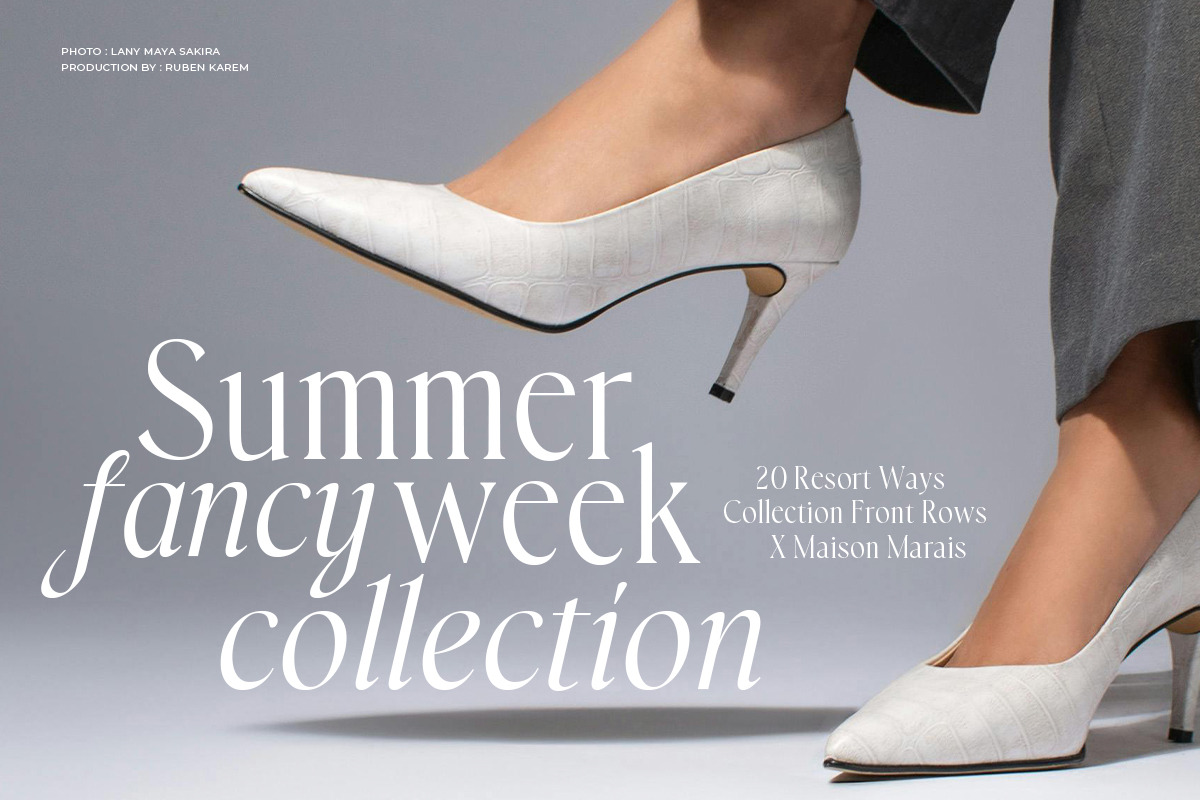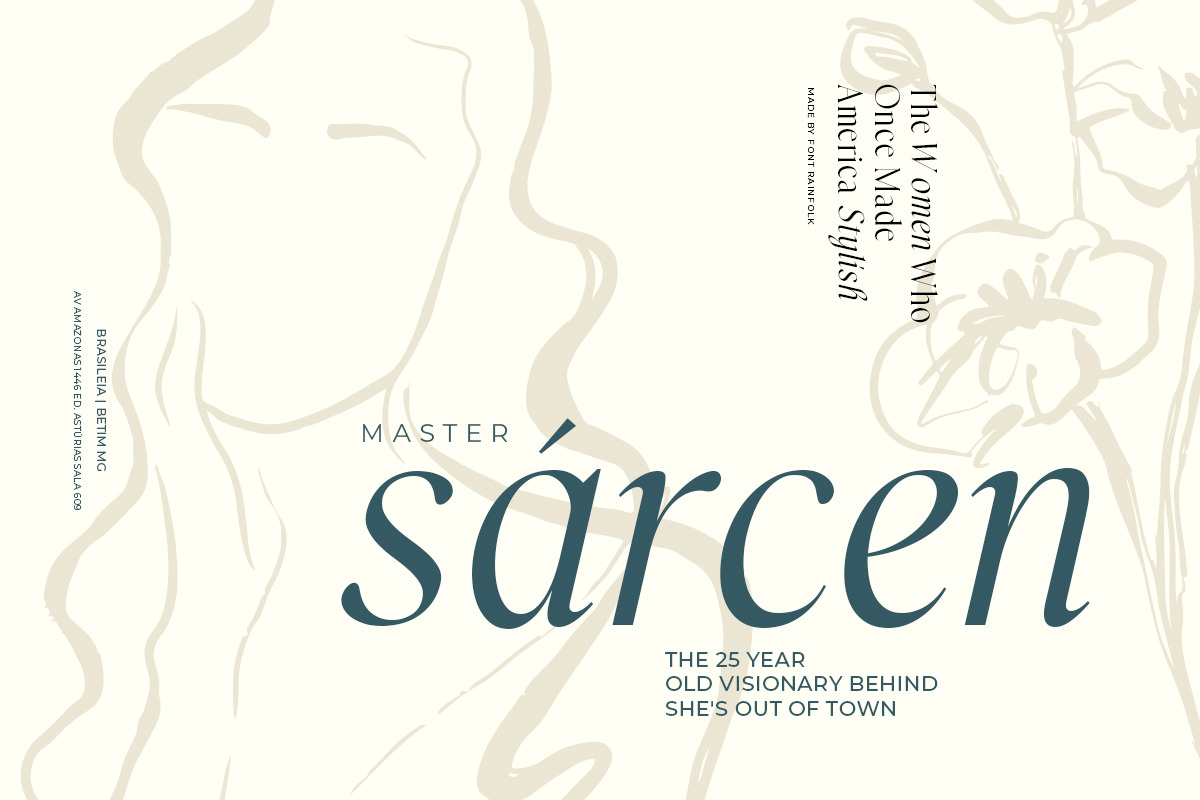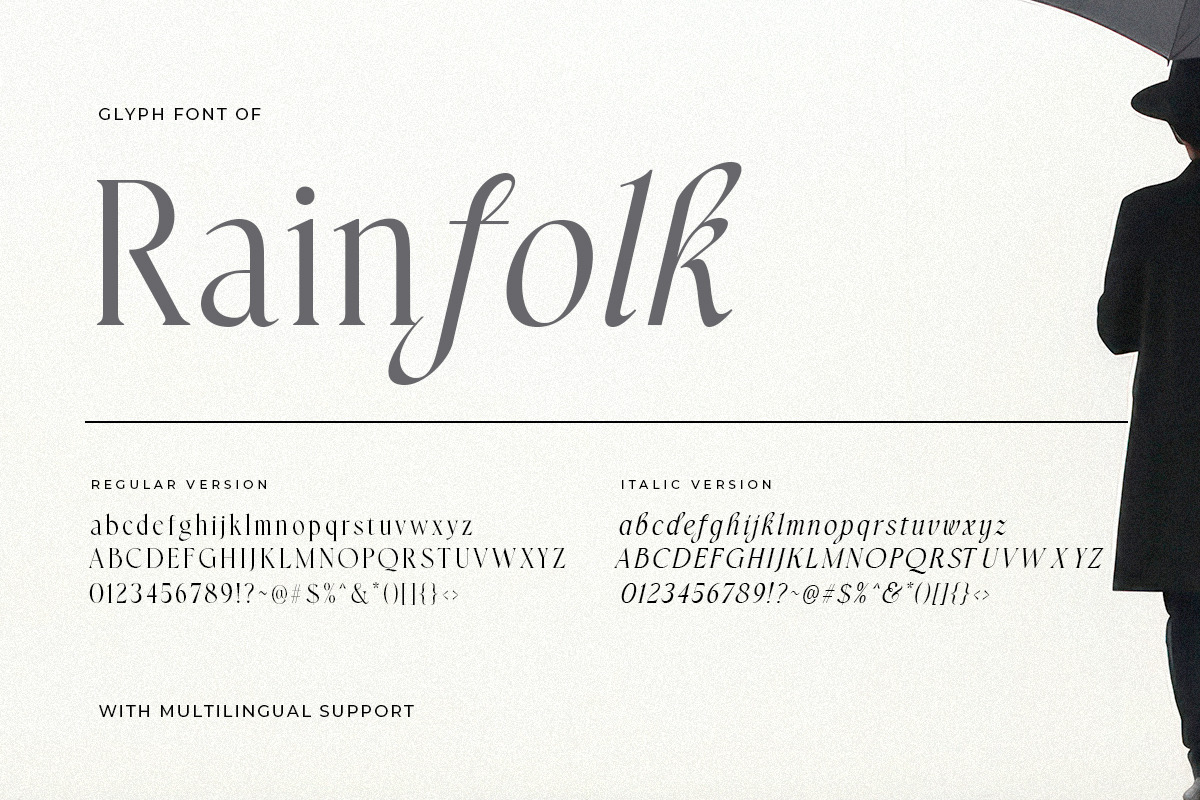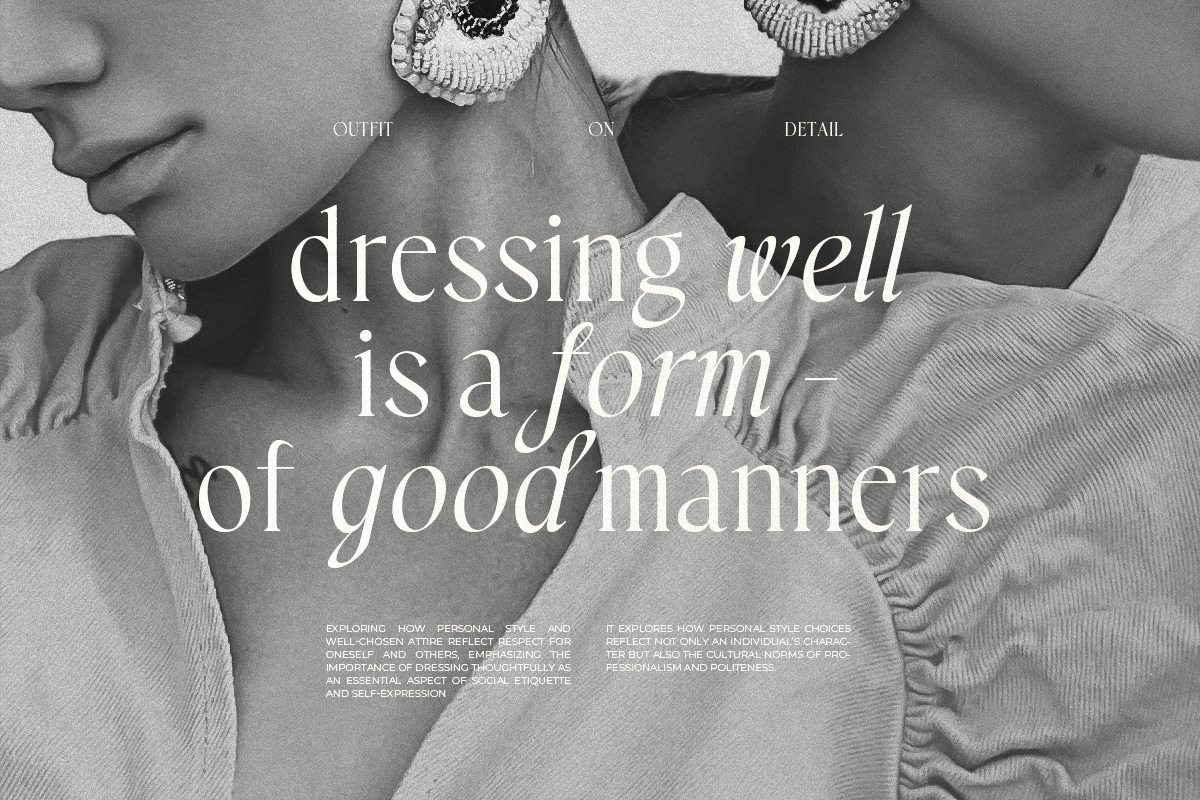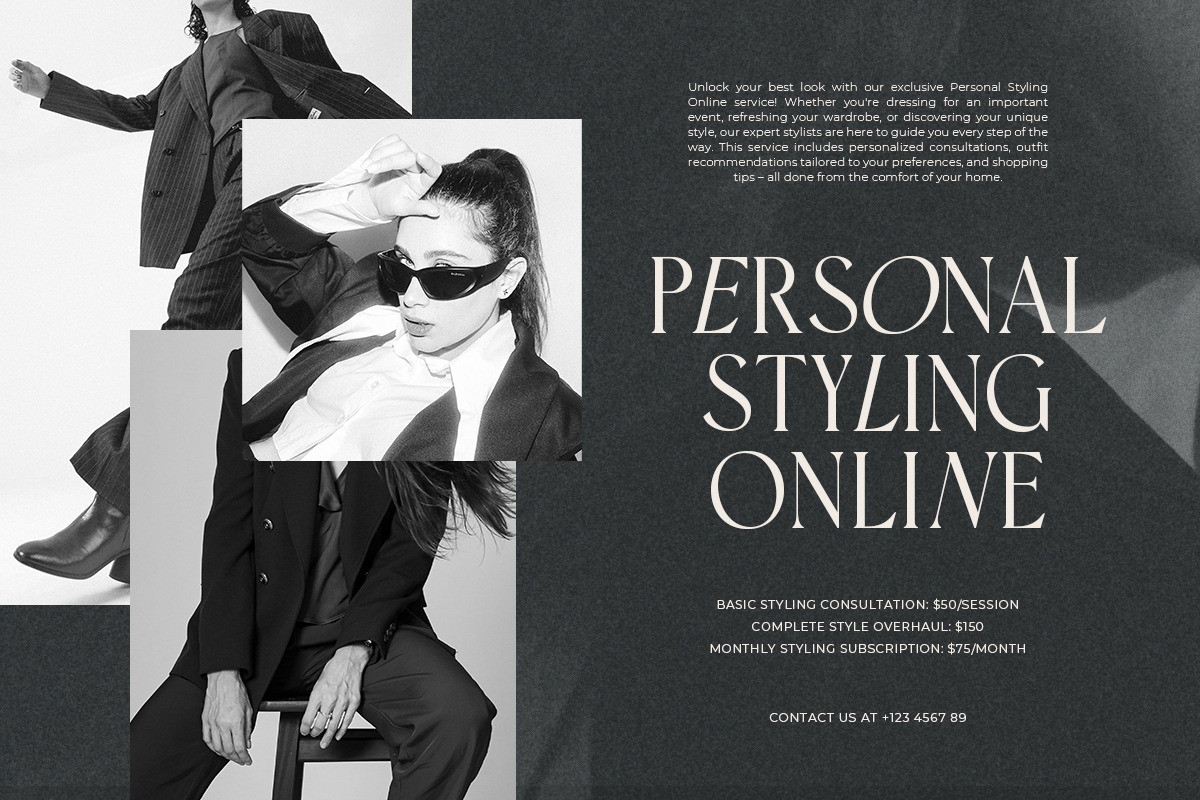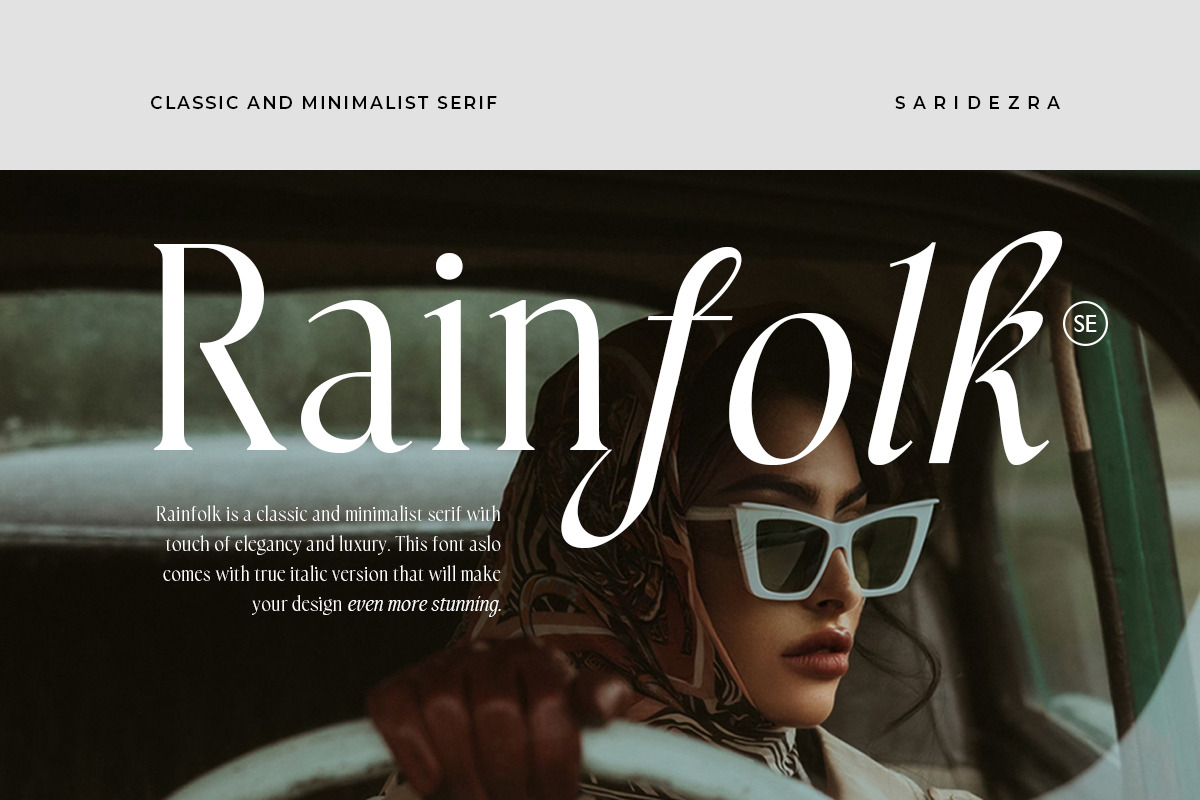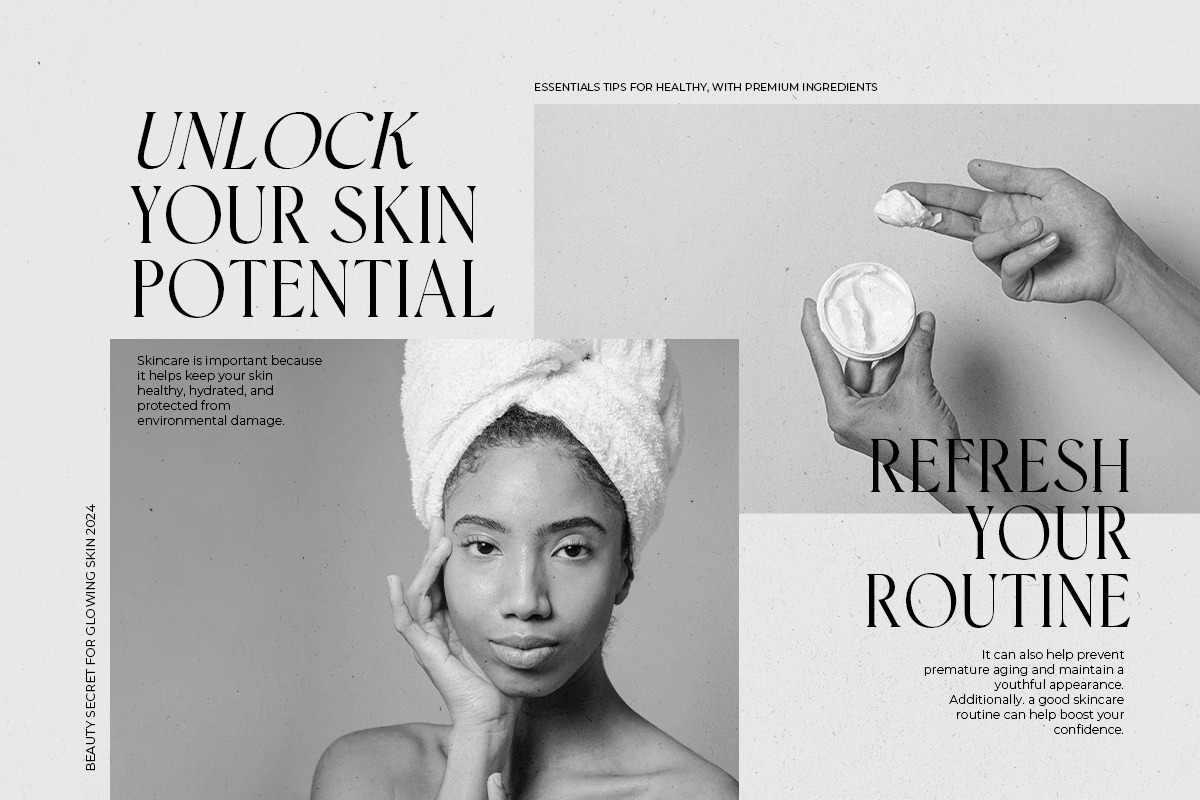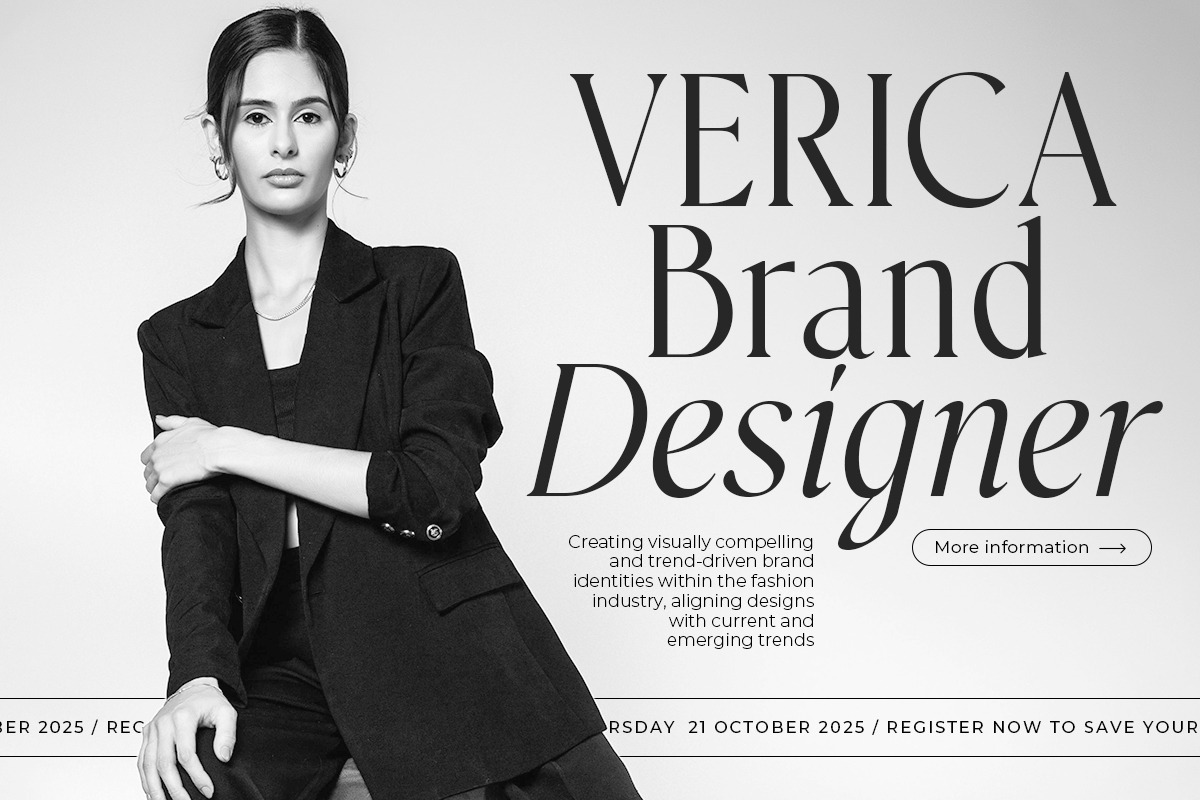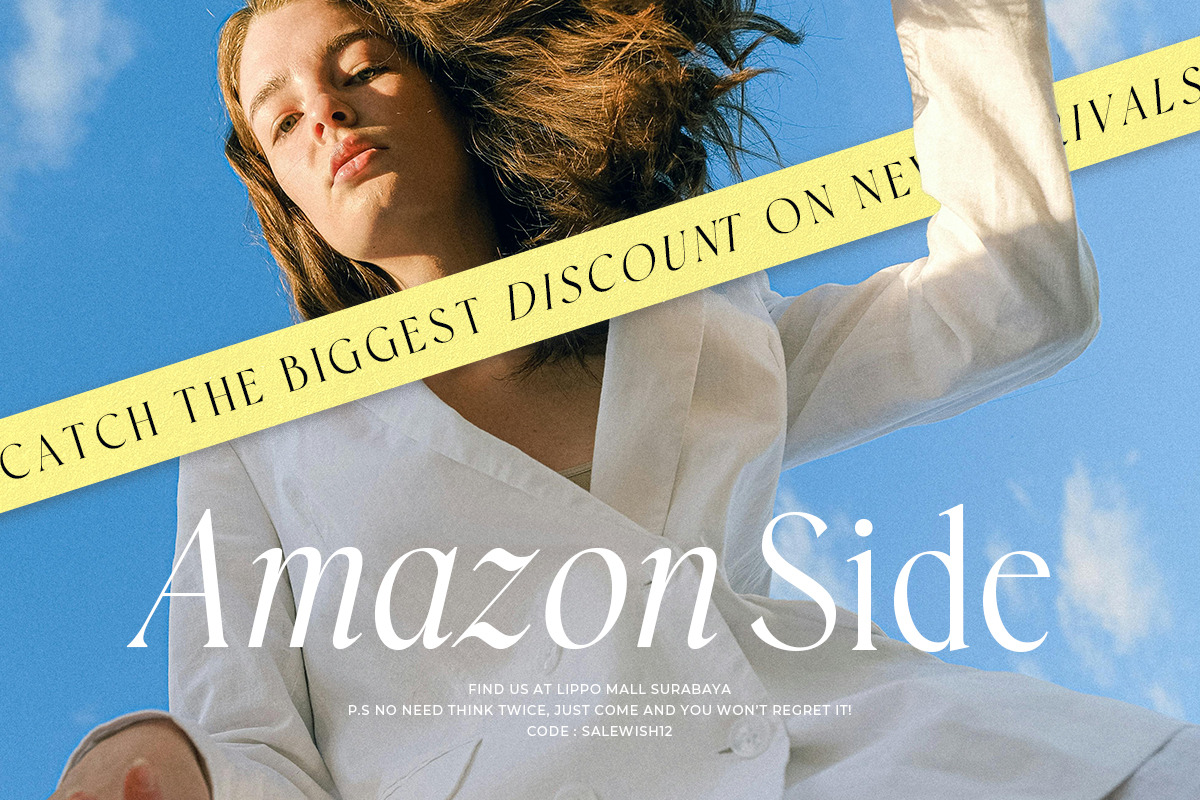
Rainfolk - Classic Minimalist Serif
Introducing, Rainfolk, a classic with true italic
Rainfolk is a classic and minimalist serif with touch of elegancy and luxury. This font aslo comes with true italic version that will make your design even more stunning. With true italic version, you can use this font family for any purposes such as wedding invitations, logo, and branding. And if you are searching for timeless display serif, this font is what you need. Rainfolk also support multi language!